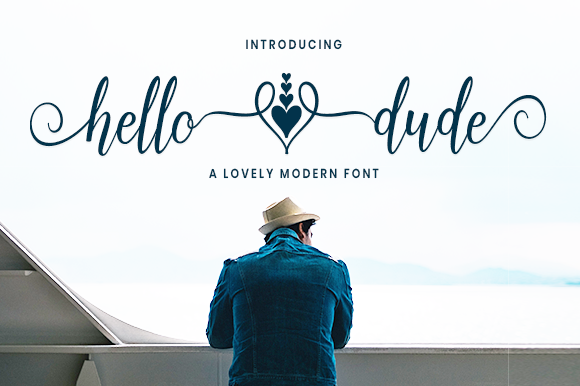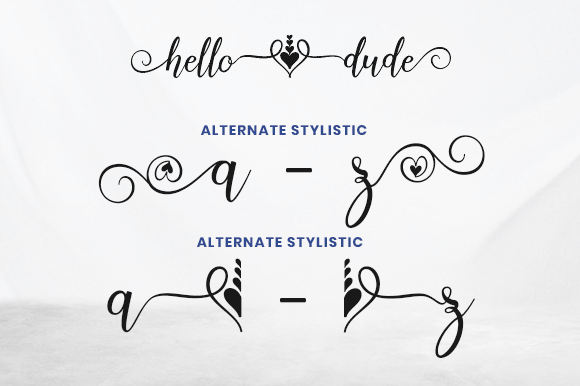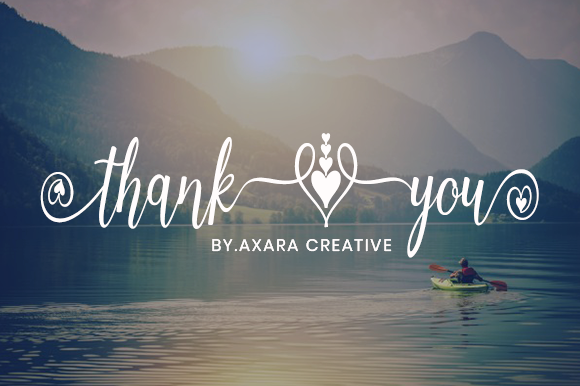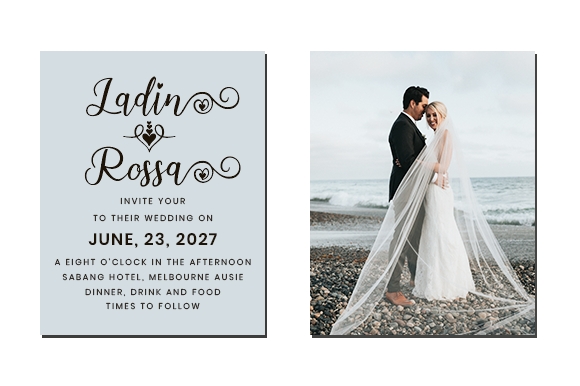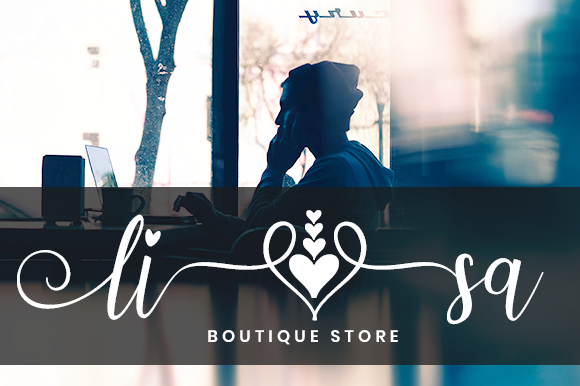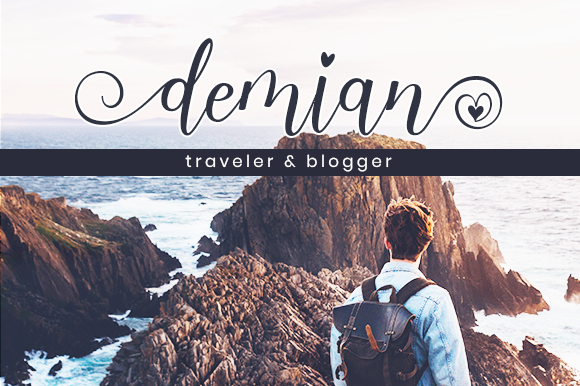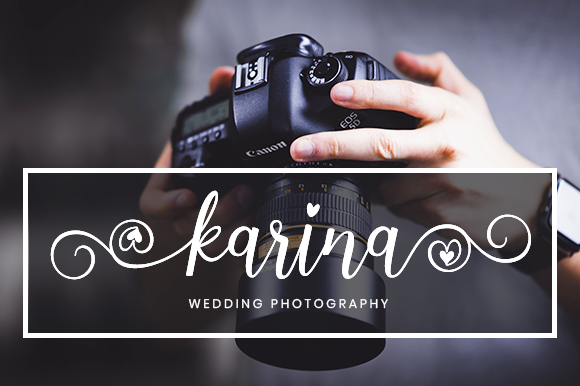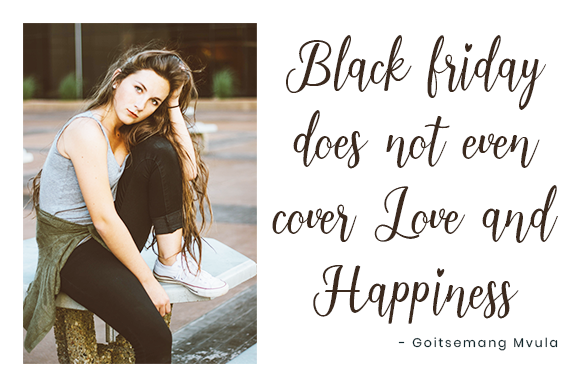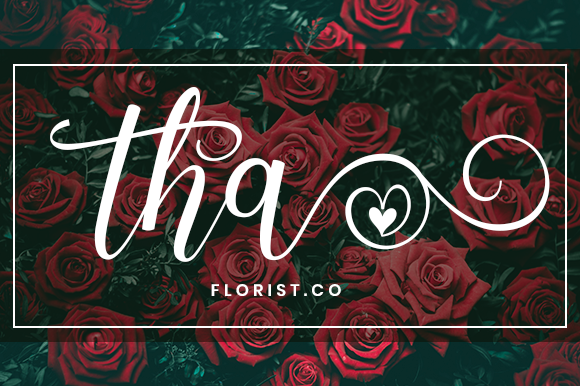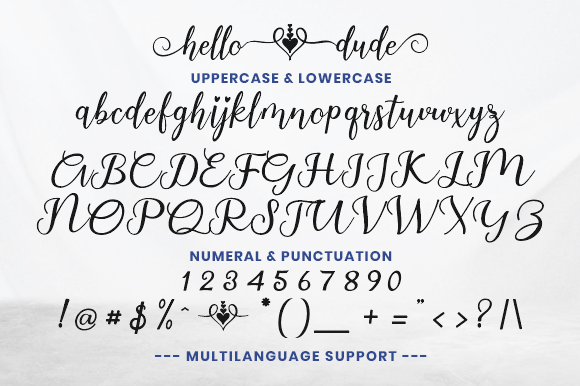
Hello Dude Font
About Hello Dude Font
Hello Dude is a beautiful script font with love-themed swashes. This font will add a romantic feeling to any design!